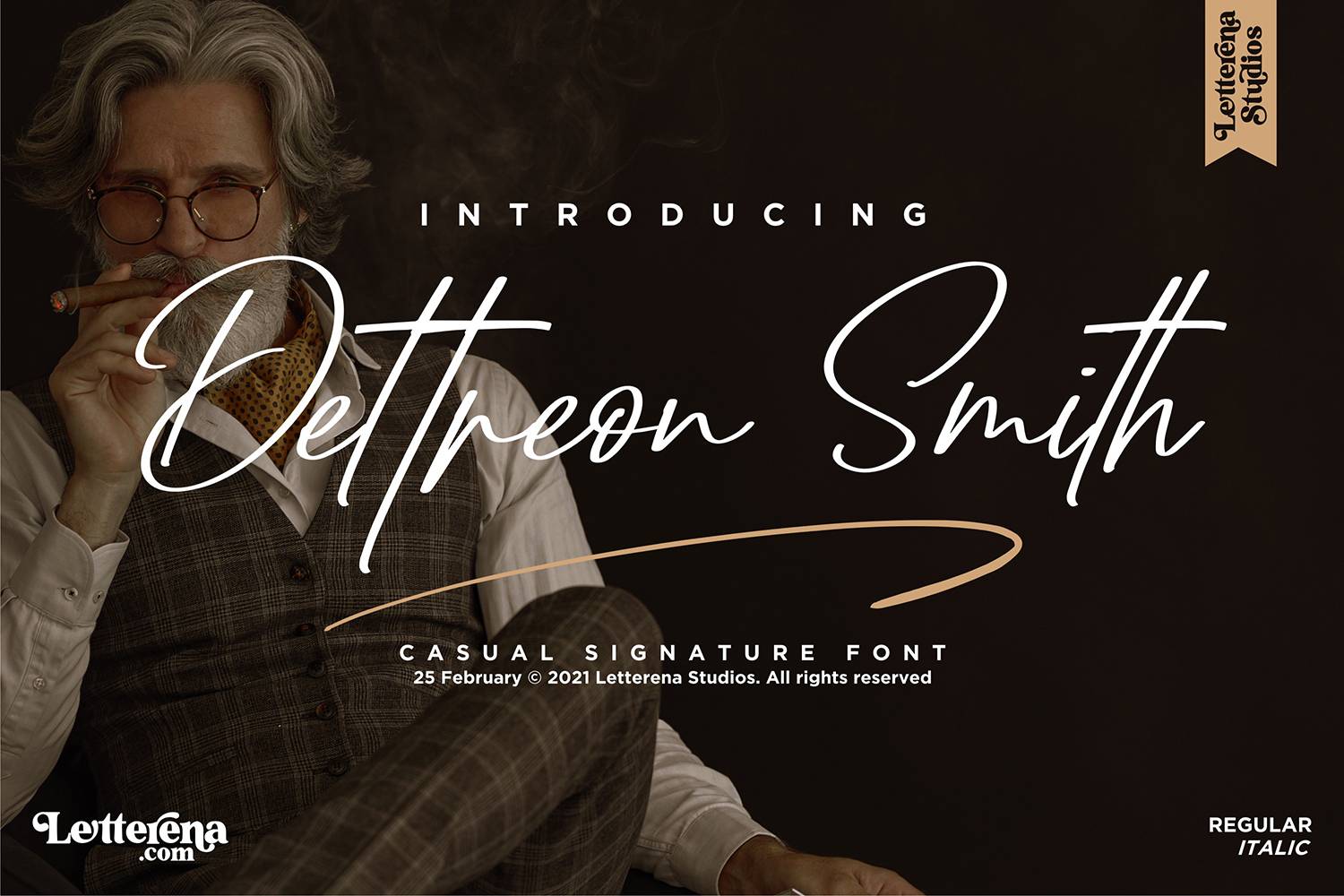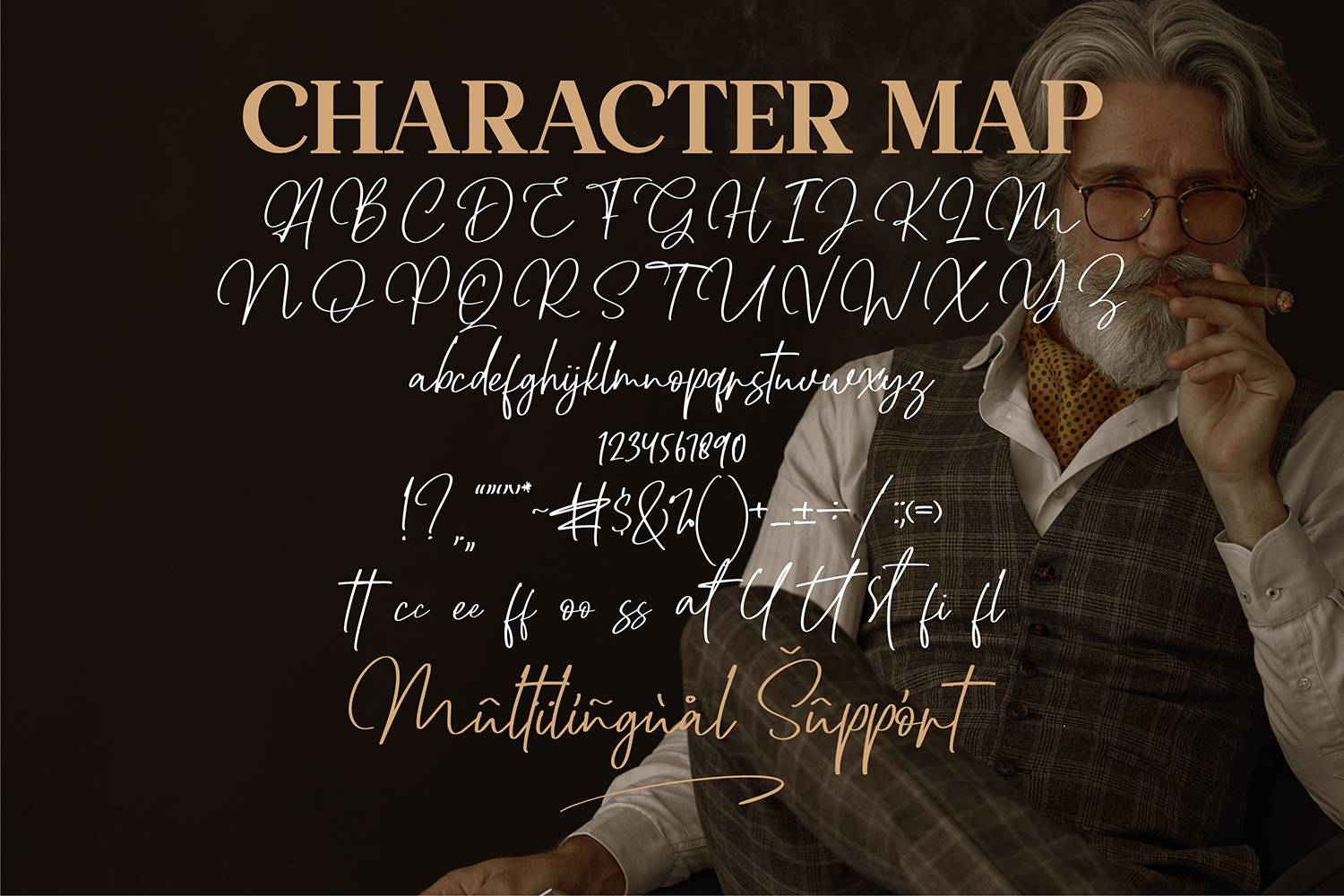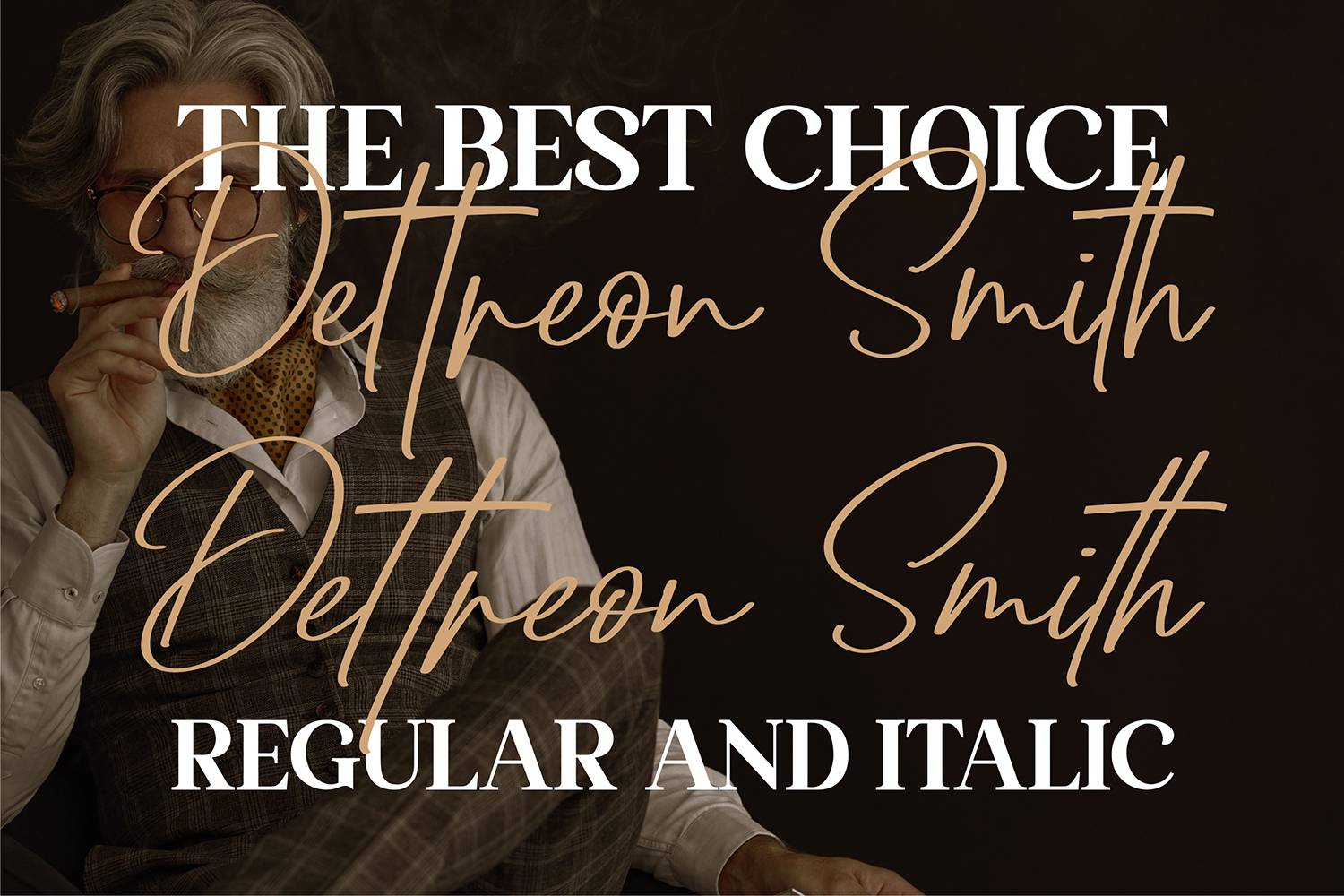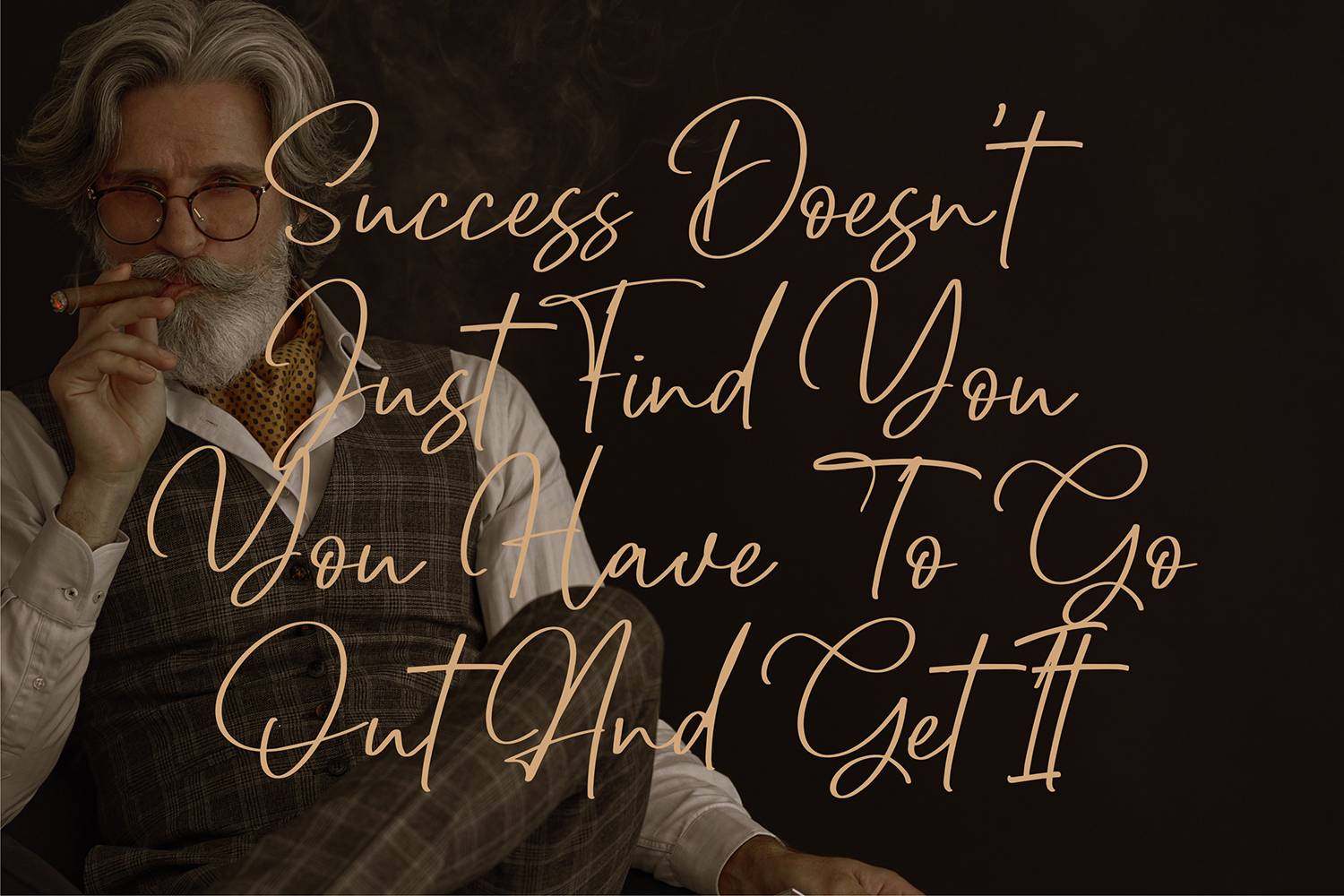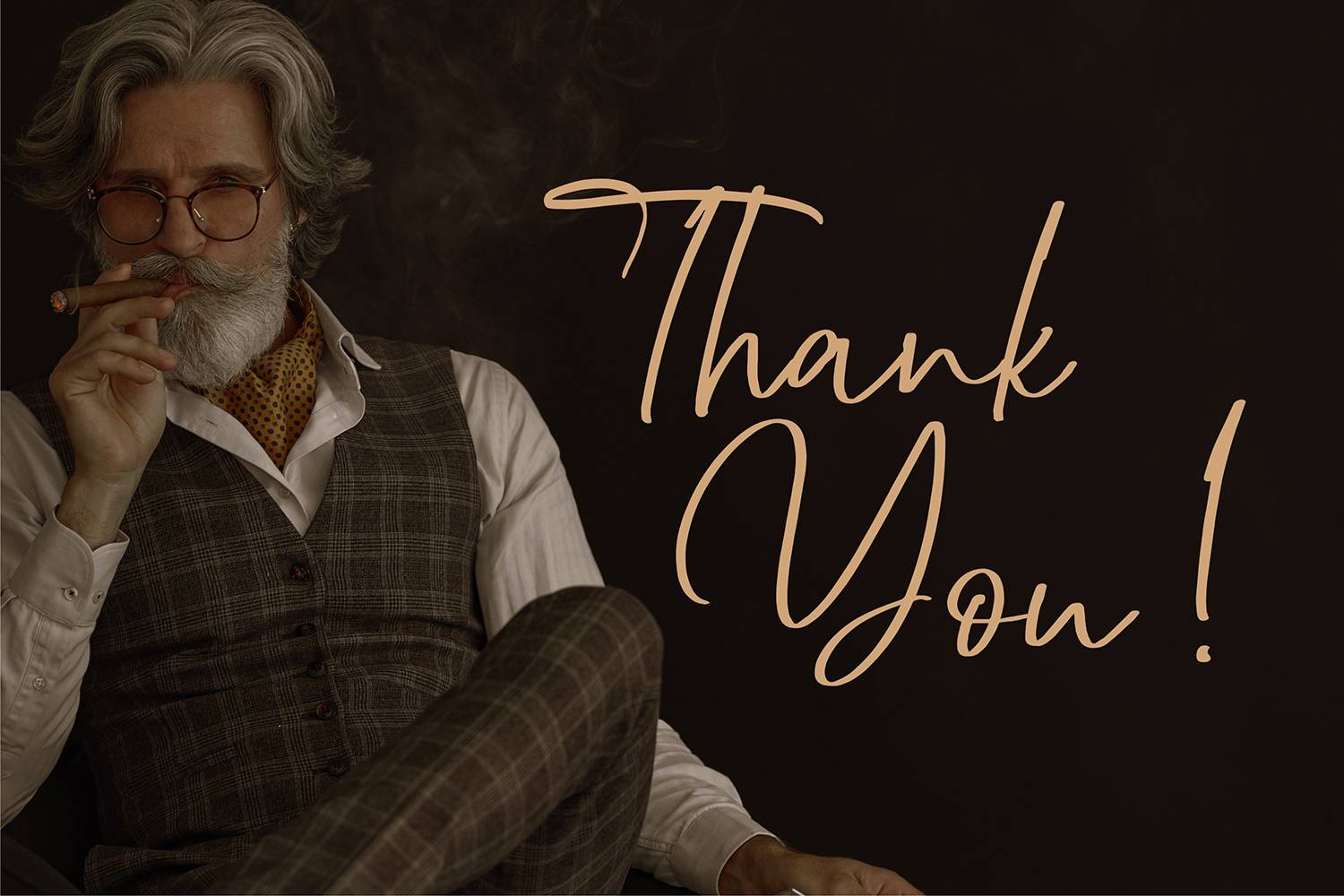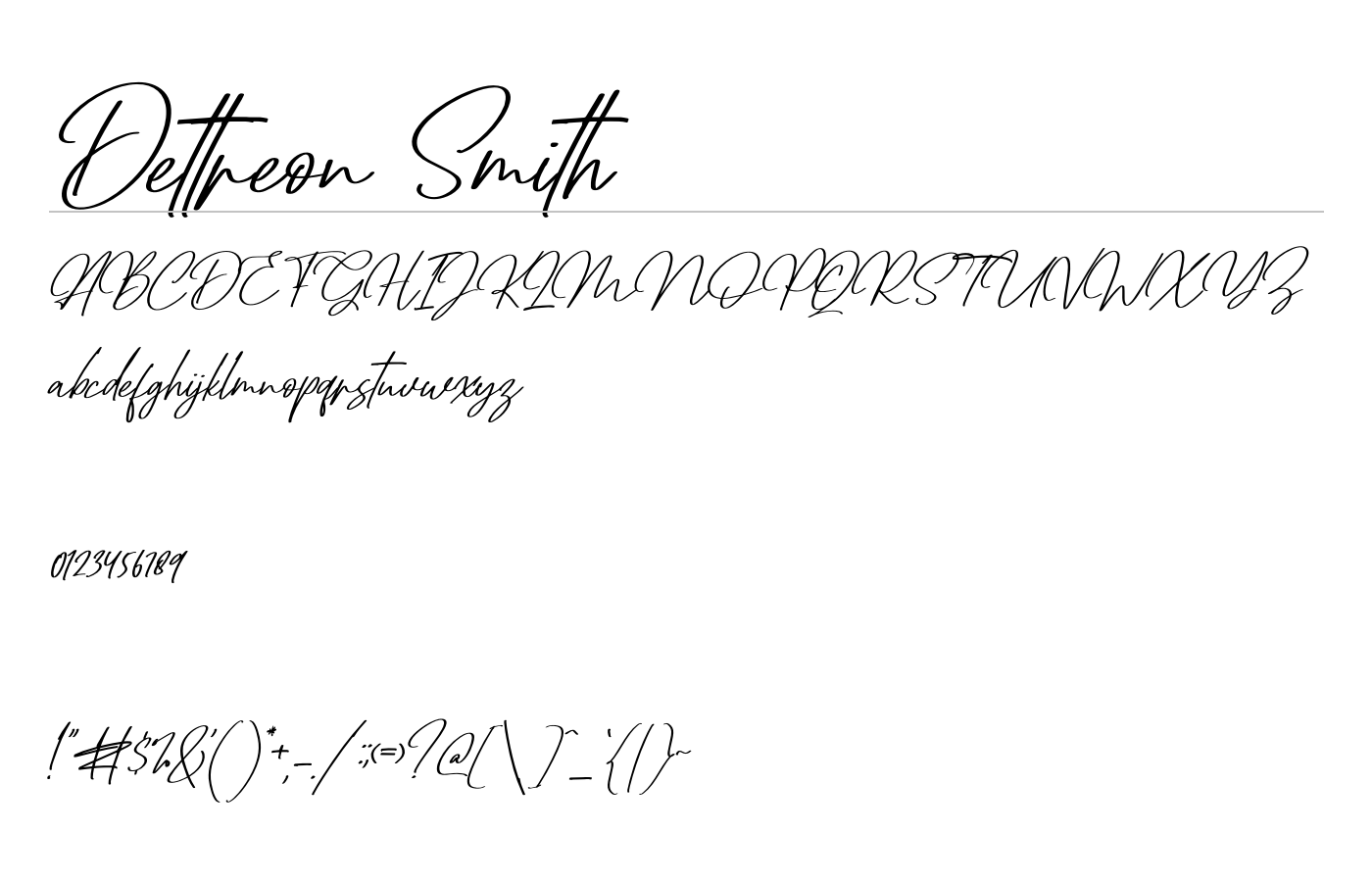
Dettreon Smith is an elegant, modern script font with a slender, flowing style that mimics natural handwriting. Its delicate strokes and high contrast create a sophisticated yet approachable feel, making it perfect for branding, invitations, and stylish headlines where a personal, refined touch is desired. The font’s graceful curves and readable letterforms balance artistry with clarity, enhancing luxury and creative design projects.
Dettreon Smith Font
About Dettreon Smith Font
| Font family | Dettreon Smith Font |